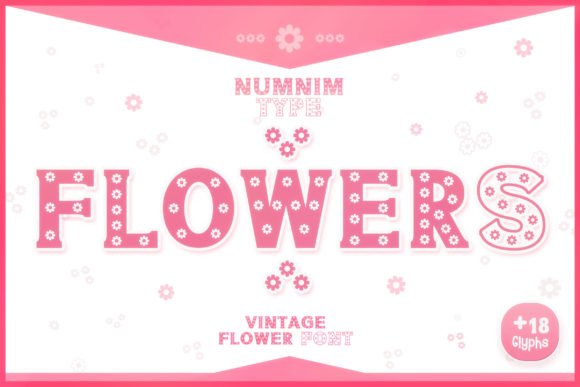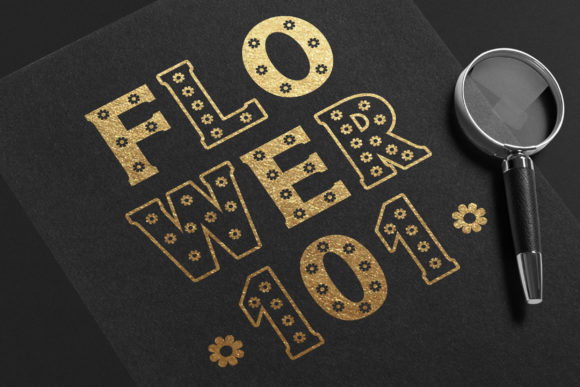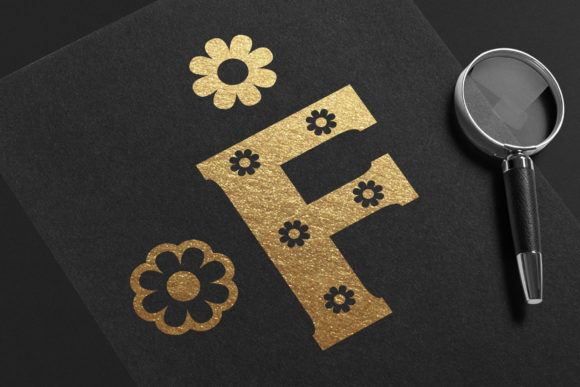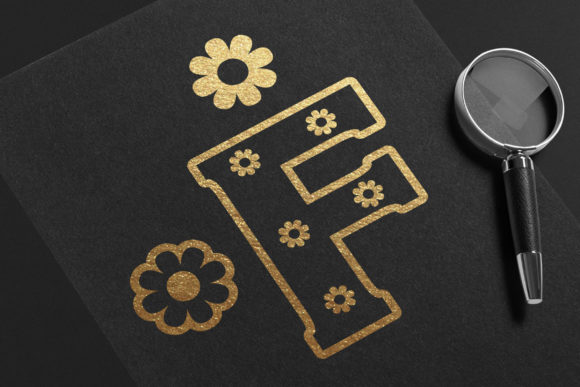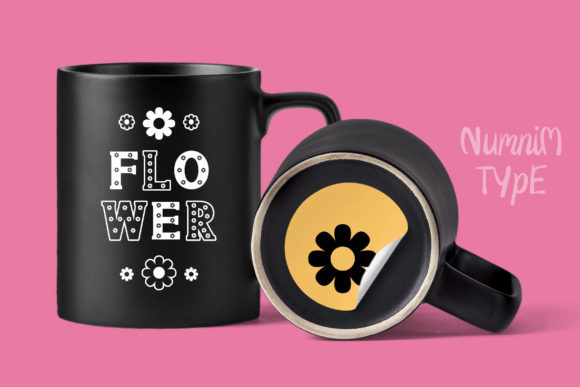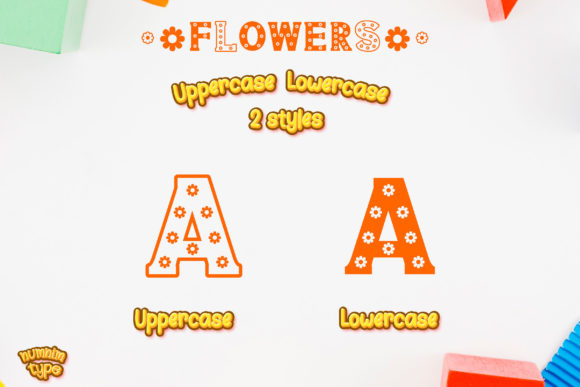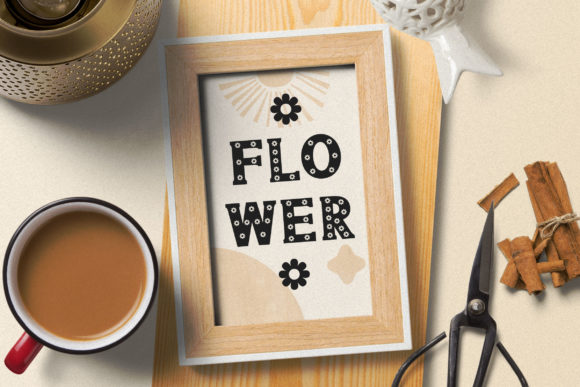
Unlock the Magic of Flowers Font
Have you ever found yourself lost in a sea of plain text, yearning for something that adds a pop of personality to your designs? I know I have! It’s those moments when creativity strikes, and you envision a project that’s vibrant, bold, and truly one-of-a-kind.
That’s where Flowers Font comes in – a stylish, decorative font that adds a touch of whimsy to any creation. This cool, bold, and thick lettered font is perfect for designers looking to add some flair to their work. Whether you’re crafting a social media graphic, designing a wedding invitation, or creating a brand identity, Flowers Font is sure to make a lasting impression.
With Flowers Font, the possibilities are endless. Add it confidently to your favorite creations, and get ready to be amazed by the unique outcome it generates. Its versatility and bold character make it a valuable asset for any designer looking to elevate their designs and stand out from the crowd.
Flowers Font Key Features
- Unique Characteristics: The Flowers Font features a unique, hand-drawn design with intricate details and subtle texture, giving it a distinct and elegant appearance.
Flowers Font Review
I was excited to dive into the world of Flowers Font, and overall, I’m pleased with what I found. Here’s a breakdown of my experience:
- The font is incredibly detailed, with intricate petal designs and subtle texture that adds depth to any text.
- Flowers Font is highly customizable, with options to adjust size, color, and even add custom layers for a more realistic look.
- The font is versatile and can be used for a wide range of projects, from invitations and stationery to branding and advertising materials.
- The font can be quite overwhelming, especially when used in large quantities or in combination with other bold elements.
- The level of customization can be a double-edged sword – while it offers flexibility, it can also be overwhelming for users who prefer a more straightforward design process.
Overall, I’m impressed with Flowers Font’s unique design and customization options. While it may not be suitable for every project, it’s a great choice for designers who want to add a touch of elegance and whimsy to their work. With a little practice and patience, I think Flowers Font can be a valuable addition to any design toolkit.